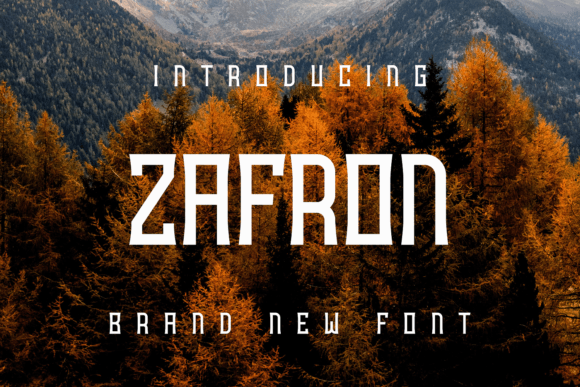
Indulge in the enchanting world of Zafron, where typography meets artistry, and inspiration takes flight!
Prepare to embark on an extraordinary typographic adventure with Zafron, the display font that will ignite your creative spark. Its meticulously crafted curves and exquisite detailing will leave you spellbound, longing to weave your words into captivating visual tapestries.
Welcome to a font that transcends the ordinary, a font that will transform your designs into masterpieces. With Zafron, every letter becomes a brushstroke, painting vivid images that leap off the page and into the hearts of your audience.
Unleash your storytelling prowess with Zafron. Its versatile nature empowers you to craft captivating travel posters that evoke wanderlust and ignite dreams of distant lands. The intricate strokes of this font will guide your readers on an unforgettable journey, leaving them yearning for more.
Picture your words adorned with the elegance of Zafron, gracing invitations that promise unforgettable celebrations. Its captivating presence will set the tone for an event that will linger in the memories of your guests, forever etched in their minds as a testament to your impeccable style.
Step into the realm of limitless creativity with Zafron. Whether you're designing logos that command attention or crafting marketing materials that leave a lasting impression, this font will elevate your creations to new heights, captivating your audience with its undeniable charm.
Zafron is not merely a font; it's an invitation to unleash your imagination, to paint with words, and to share your stories with the world in a way that will forever captivate and inspire.